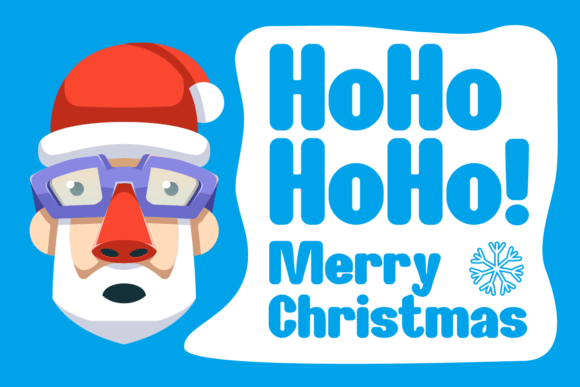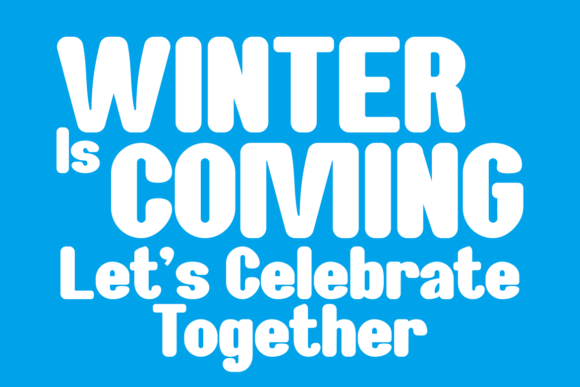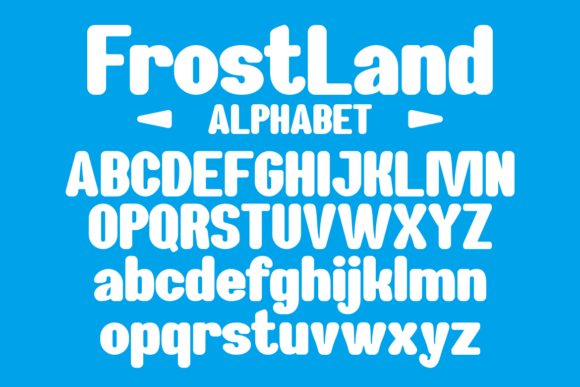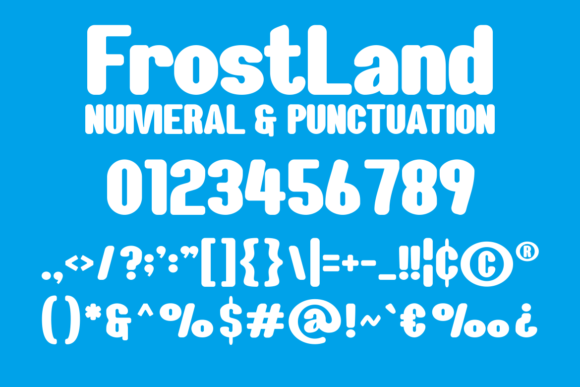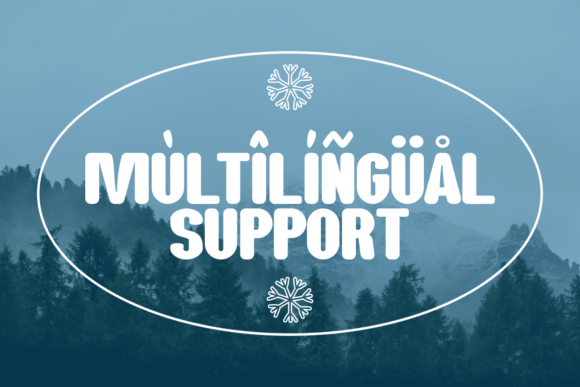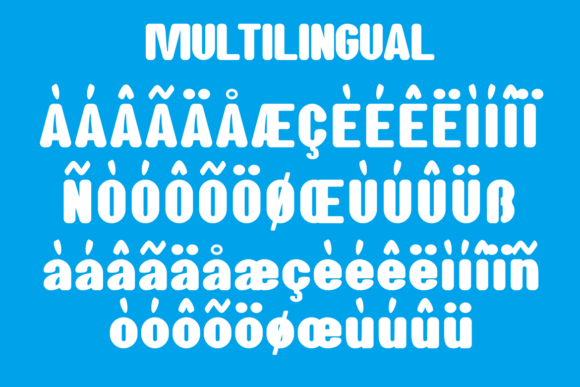
Introduction to Frost Land Font Font
Fonts play a crucial role in design, and the Frost Land Font font is a typeface that brings both character and versatility to any project. Whether you’re working on a branding project, a website, or a print design, the Frost Land Font font offers a unique style that can elevate your work.
This font is specifically designed to create a Christmas atmosphere and mood.
It is often used in graphic design, greeting cards, posters, and various other visual elements related to the celebration of Christmas .
Key Features of Frost Land Font Font
Why Choose Frost Land Font Font?
The Frost Land Font font is more than just a typeface – it’s a design tool that helps you communicate your message with style and clarity. Its unique character set and versatile design make it suitable for a wide range of applications, from elegant invitations to bold headlines.
With its carefully crafted letterforms and balanced proportions, the Frost Land Font font ensures readability and visual appeal across all mediums.
What makes Frost Land Font font special?
The Frost Land Font font stands out with its unique design, exceptional readability, and versatility across various design applications.